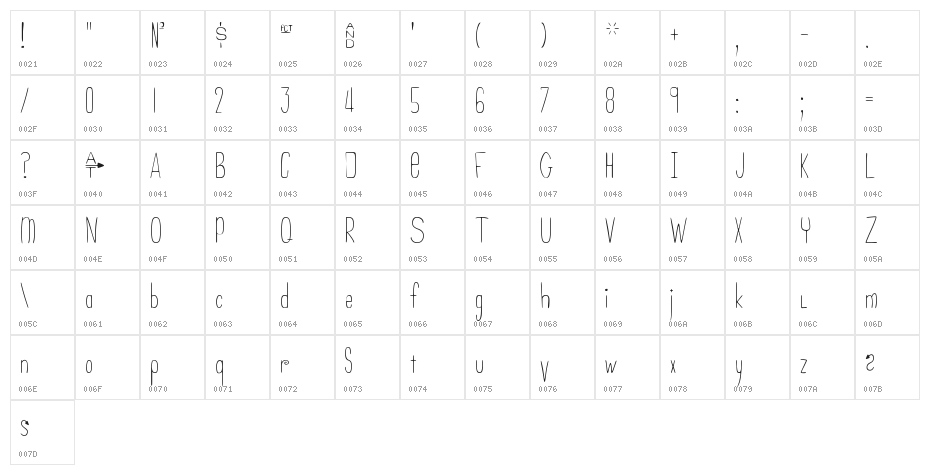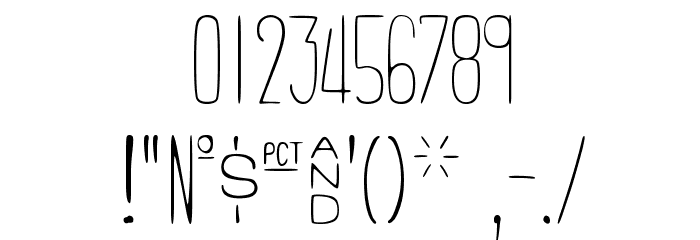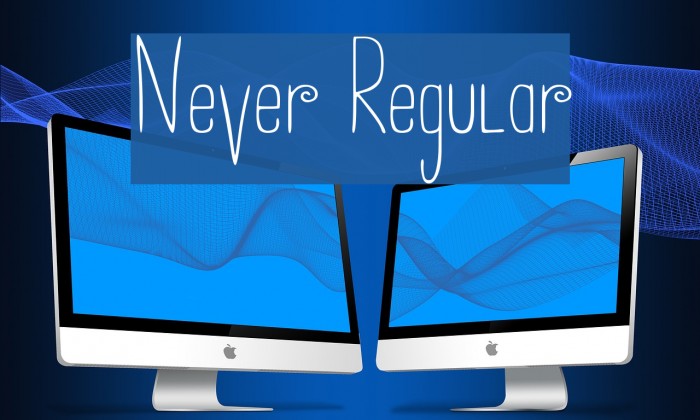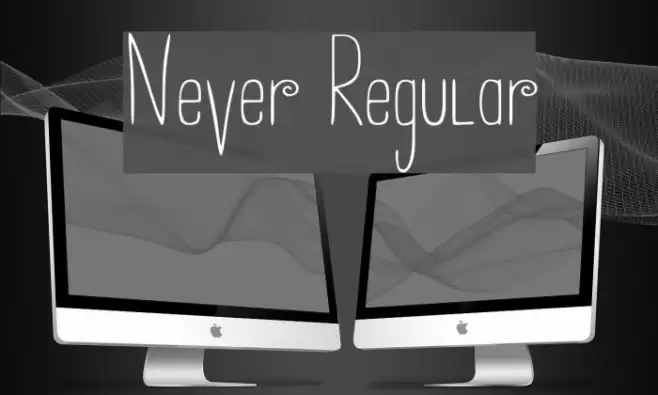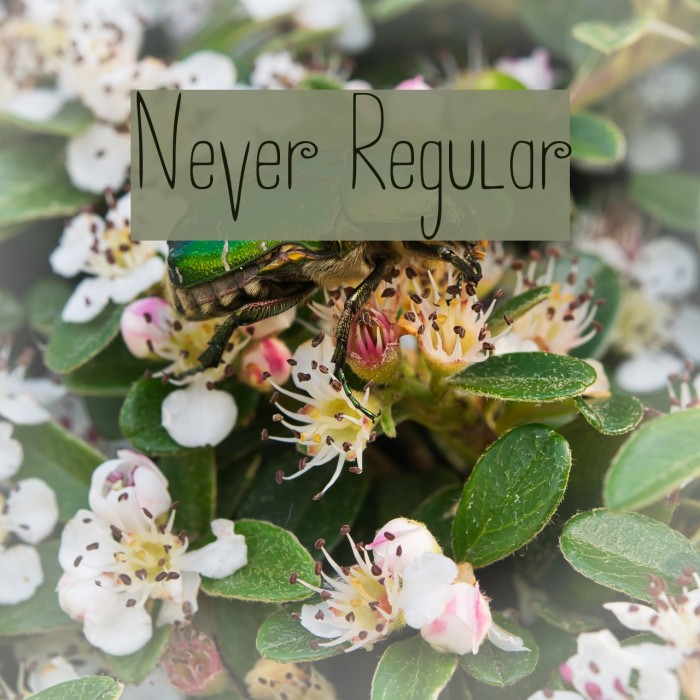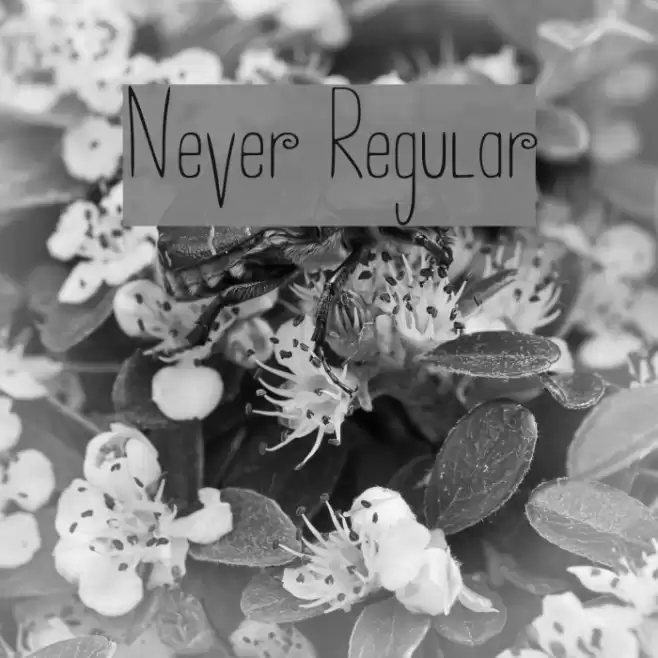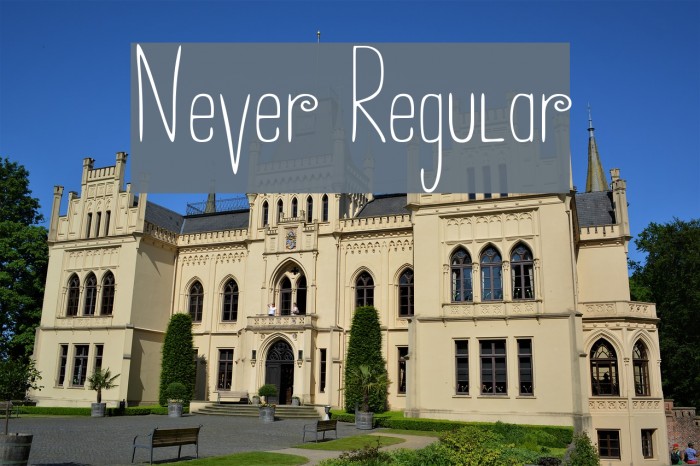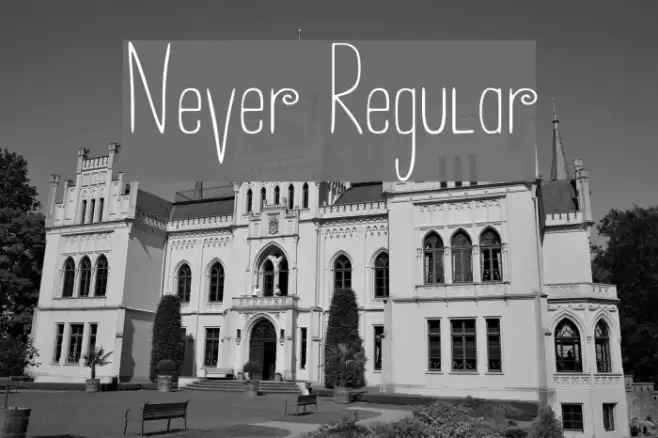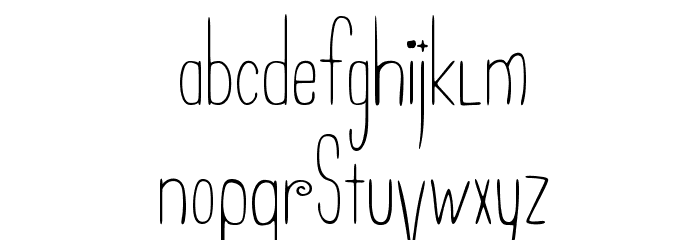
Never Regular Font
Never Regular Description
This font features a playful and whimsical design, characterized by its tall, narrow letterforms and irregular stroke widths. The uppercase letters are particularly elongated, giving the font a unique and quirky appearance. The lowercase letters maintain a consistent style with slight variations in height and stroke, adding to the font's charm. The numerals are similarly styled, with a distinctive flair that complements the overall aesthetic. Special characters are included, each designed with the same playful spirit, making this font suitable for creative and informal applications.
| Width | Condensed |
| Overall Style | Whimsical |
| Proposed Projects | Ideal for children's books, playful branding, greeting cards, and creative posters. |